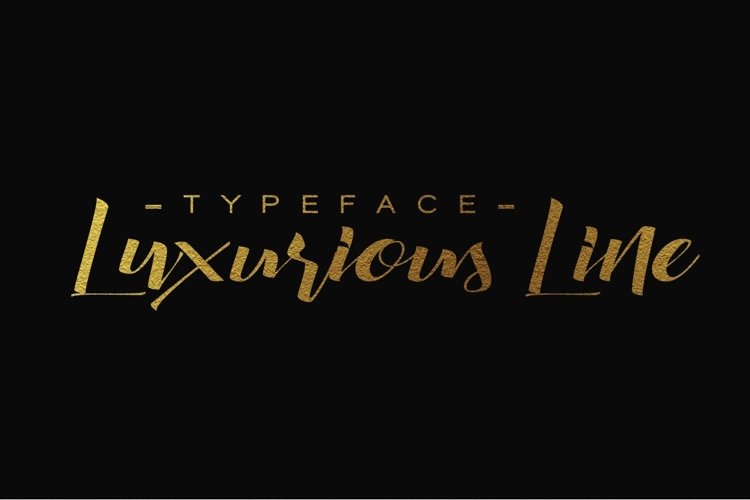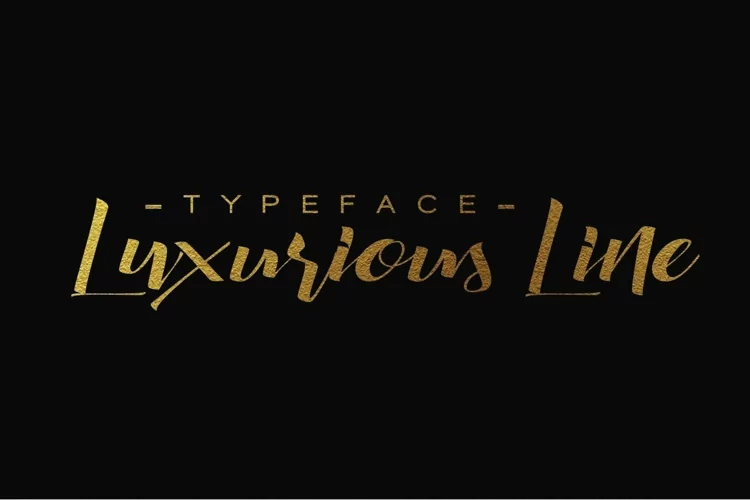
Introducing "Luxurious Line Typeface" Can be used for various purposes namely headings, logos, wedding invitations, t-shirts, letterheads, signages, labels, news, posters, badges etc. Product Content: Luxurious Line WOFF